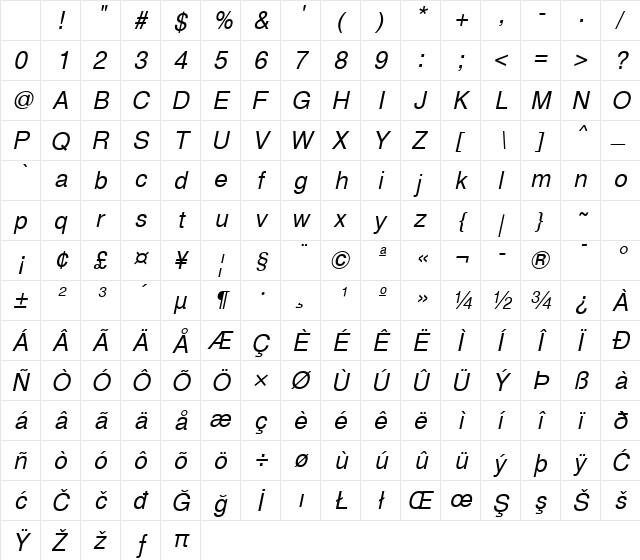
Helsinki is a composed and adaptable typeface that performs quietly and consistently across a wide range of design contexts. The slanted form adds forward momentum and visual energy.
Pro Tip: Use Helsinki for emphasis, pull quotes, and subheadings where its slanted energy can add rhythm to the layout.